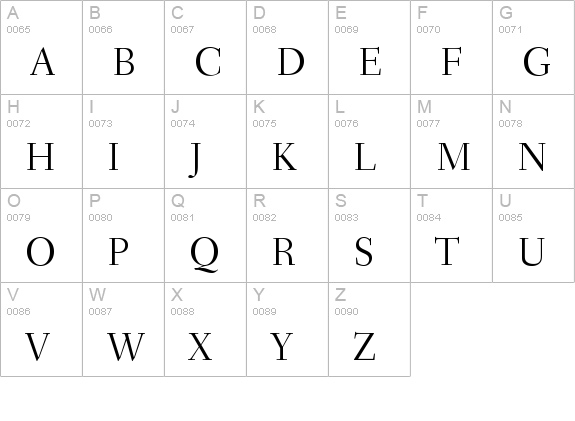
Fairfield LH 45 Light Small Caps & Old Style Figures is a refined, elegant variant in the Fairfield typeface family \xE2\x80\x94 well suited to elegant body text, refined sub-headings, and luxury branding.
The Fairfield LH 45 Light Small Caps & Old Style Figures font is a sophisticated and elegant typeface that exudes a sense of timeless style and refinement. Its delicate letterforms and subtle serifs create a harmonious balance that is perfect for adding a touch of class to any design project. This font is ideal for use in editorial design, branding, invitations, and other projects where a touch of sophistication is desired. The small caps and old-style figures add an extra level of versatility, allowing you to create distinctive and visually engaging layouts. Best of all, the Fairfield LH 45 Light Small Caps & Old Style Figures font is available for free download at FontsMarket.com. Simply visit the website to access this beautiful typeface and elevate your design projects with its timeless charm.